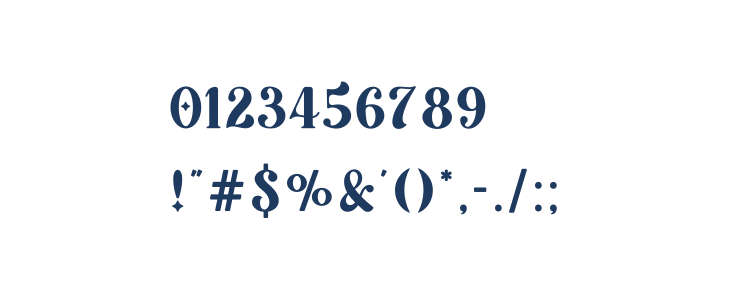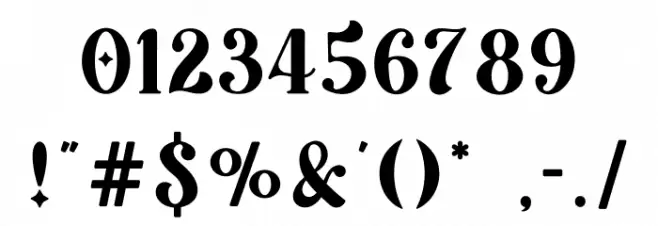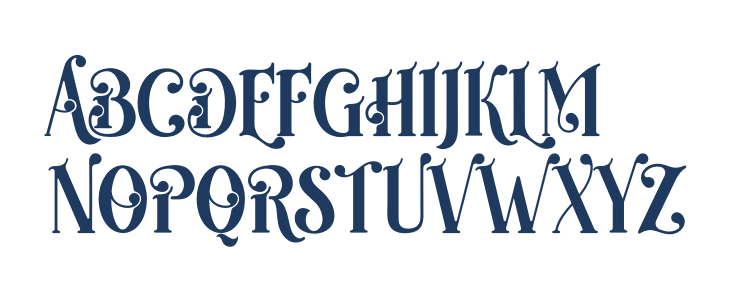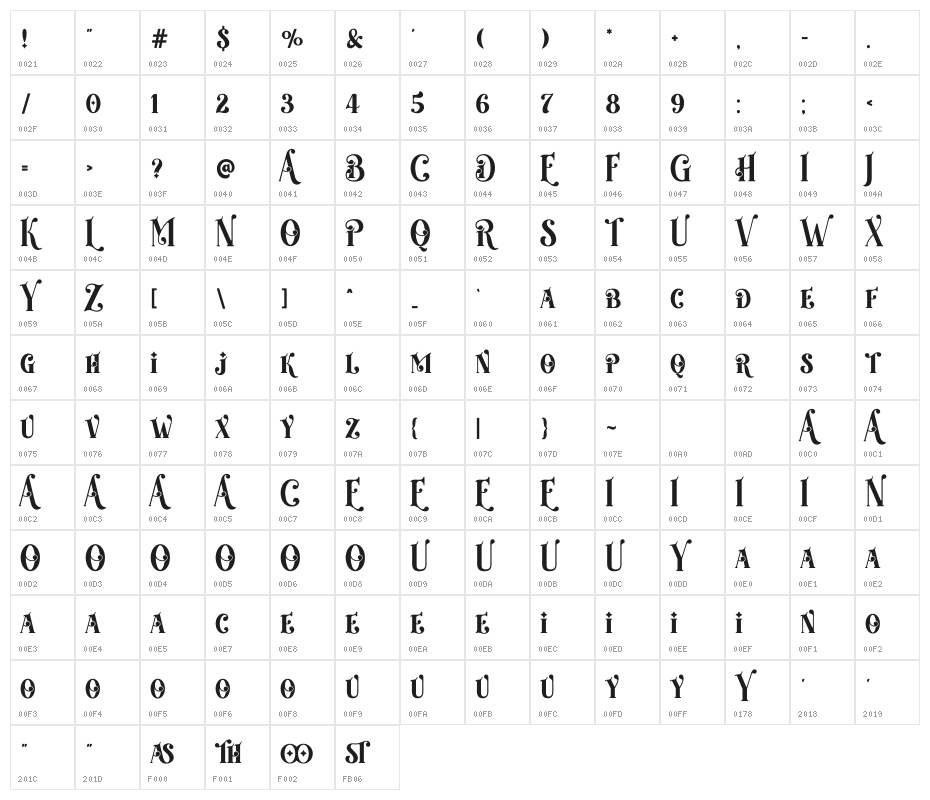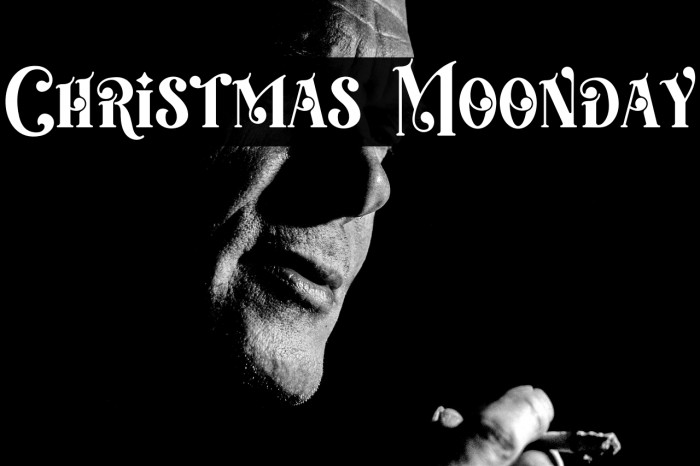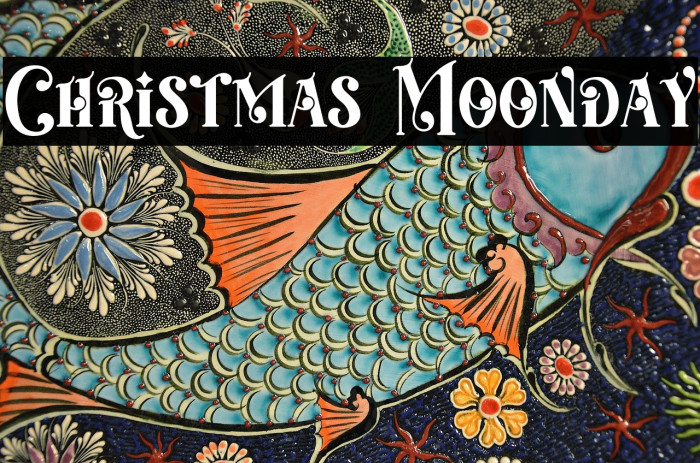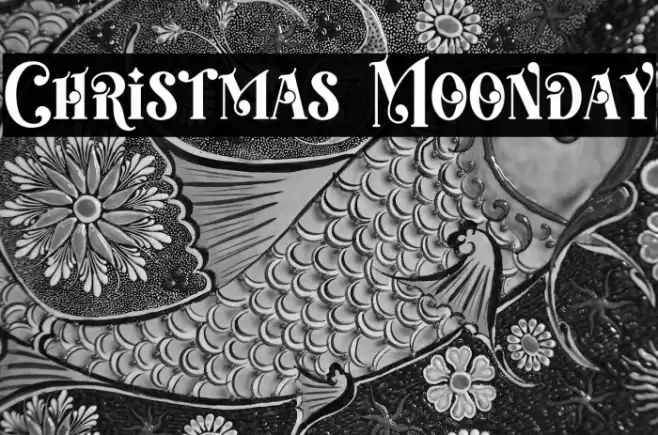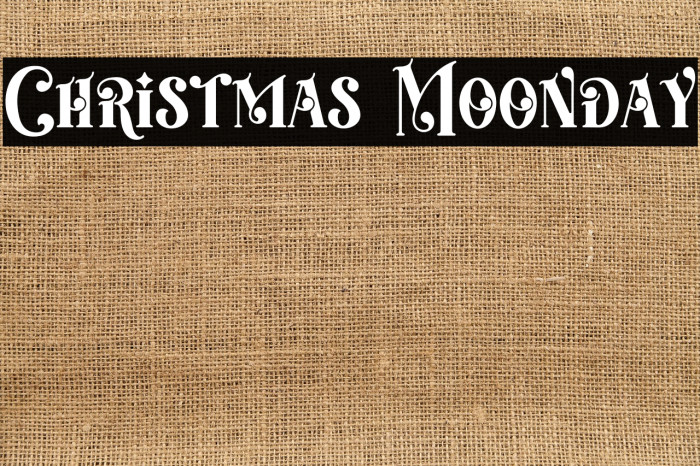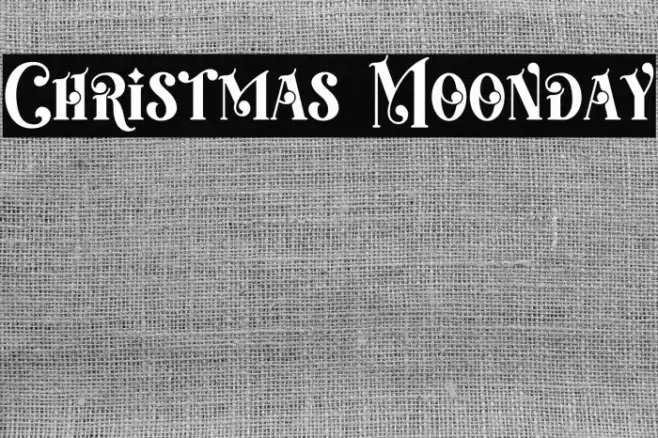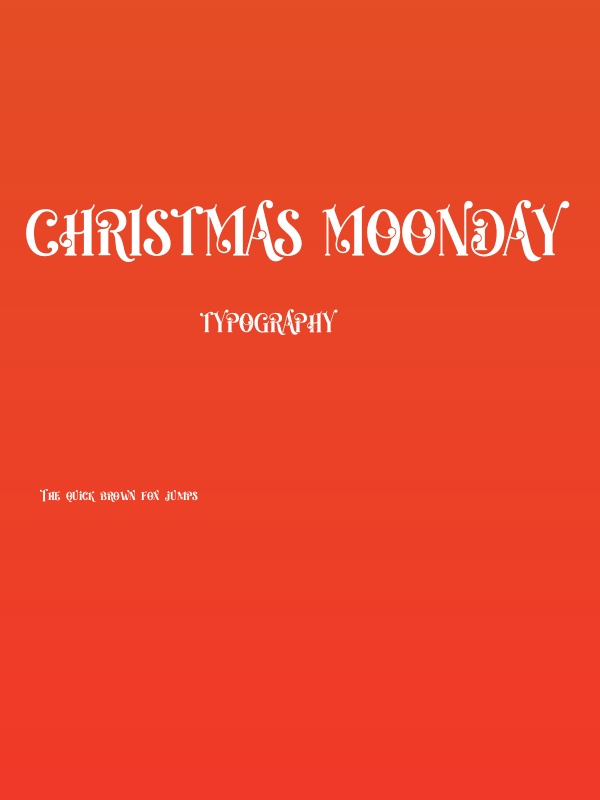
Christmas Moonday Font
Christmas Moonday Description
A decorative display typeface featuring bold, high-contrast strokes with whimsical swirls and ball terminals on many characters, evoking a festive and playful atmosphere. The letterforms are upright with a mix of sharp and rounded elements, and the numerals and punctuation follow the same ornate style.
| Overall Style | Decorative, Festive, Playful |
| Use Case | Headlines, Logos, Posters, Invitations |
| Proposed Projects | Holiday cards, event posters, party invitations, branding for festive products, decorative headlines. |